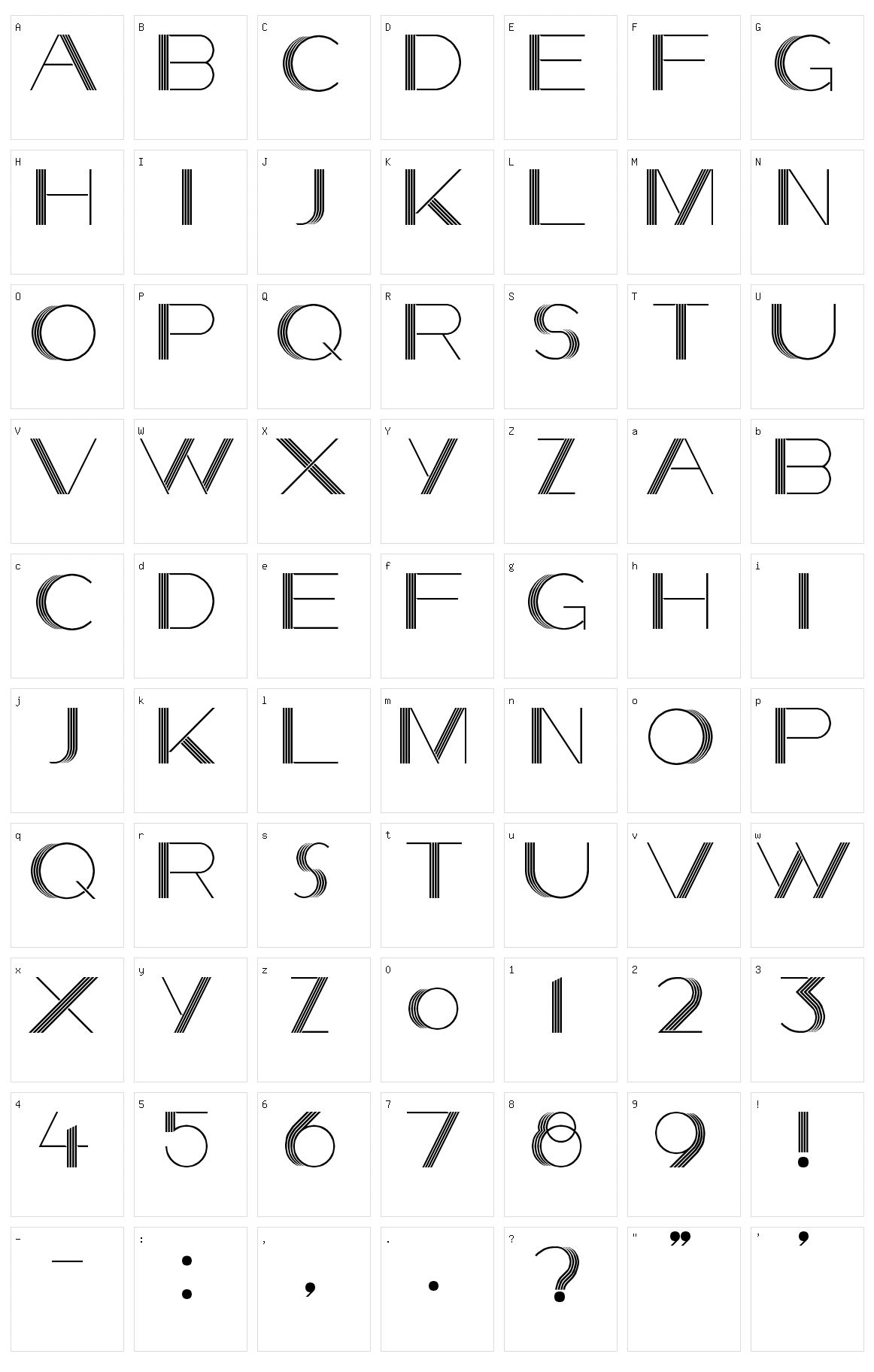
The free font She Stole the Night is carefully designed by Neoqueto, showcasing a thoughtful balance of creativity and usability and falls under the Retro font style. When you download the ZIP file, it contains only 50.76 KB of font files, making it lightweight and quick to download. Please review the license details below to understand permitted usage and distribution rights. If license information is not available, we recommend using this font for personal projects only or contacting the author directly for commercial usage permissions.
The FontStruction âShe Stole the Nightâ